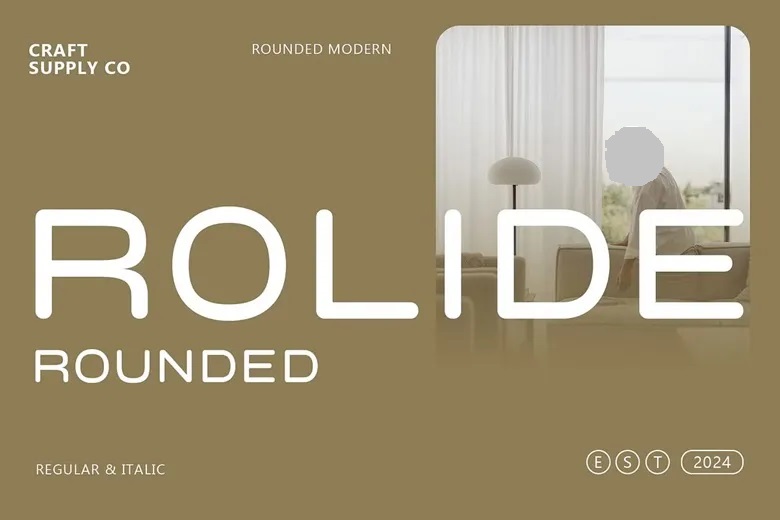
Rolide Rounded Font
Rolide Rounded is an ultra clean and low contrast sans serif typeface that is ideal for many design applications with balanced and elegant look. Urban Style Giving a nod to the present generation, This font comes with a very modern look which will be perfect for projects that need that modern and chic touch.
Smooth round contours With its rounded shapes, this font adds a touch of friendliness to text, and makes it easy to read while still being contemporary.
Rolide Rounded Sans Serif Font